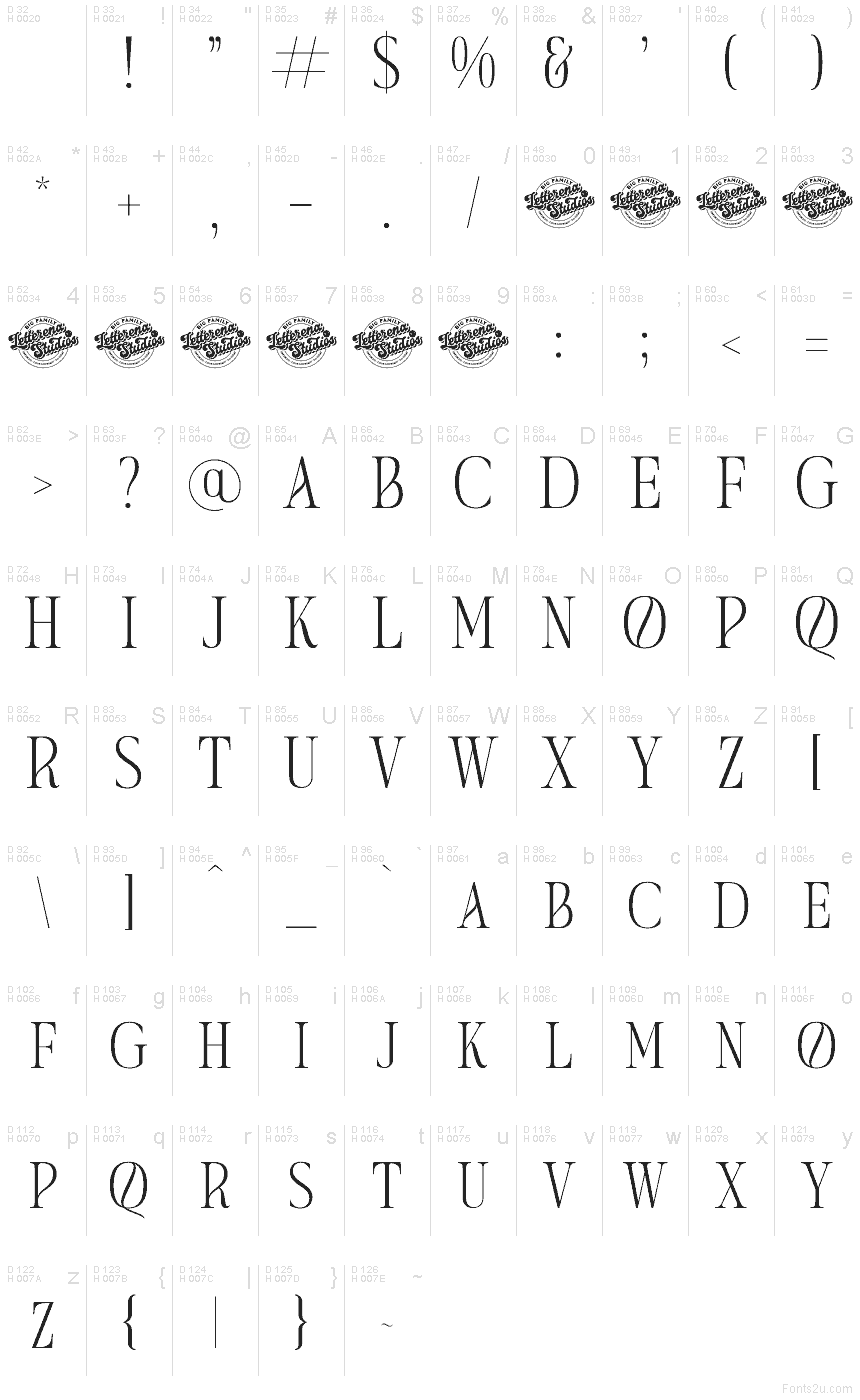
Seraneo DEMO VERSION
Seraneo font by Letterena Studios is a condensed serif font that communicates style, elegance, and sophistication. Although classic at first glance, it carries a modern touch to its overall look thanks to the geometric influences found throughout. But even with this factor in place, its unique appeal still drives from its distinct balance between formal flourishes and laid-back letterforms.